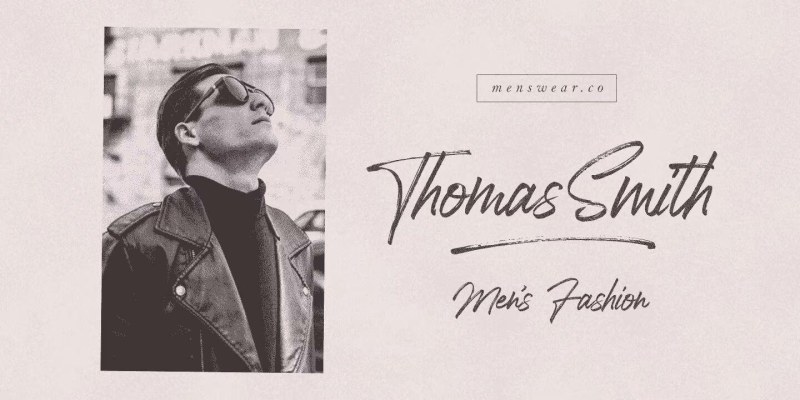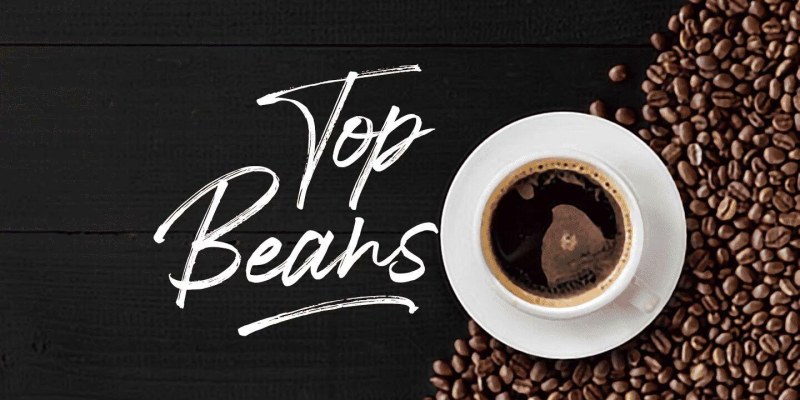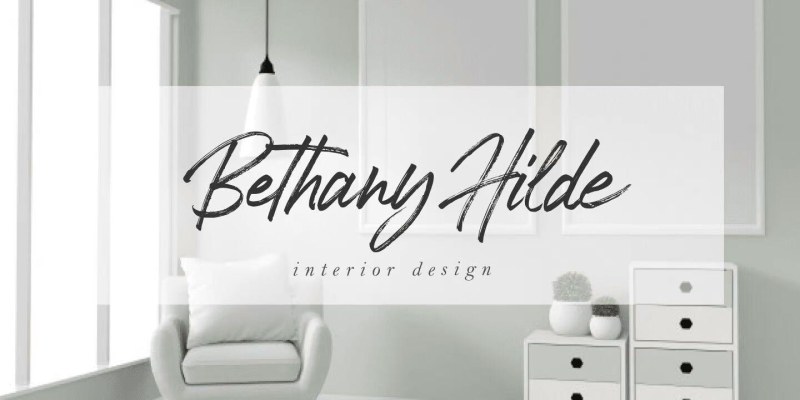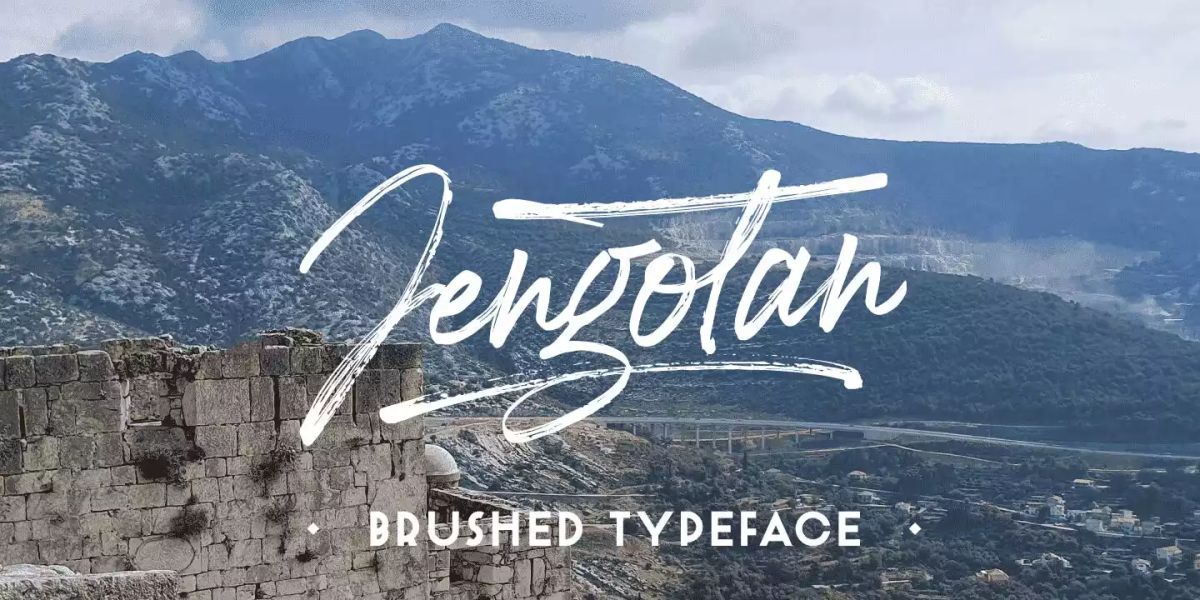
Jengotan Font Family
Jengotan is a rapid script, hand-painted with a brush to contrast thick and thin curves. It is drawn, scanned and vectorized from paper to screen, intending to be an aut…
Jengotan is a rapid script, hand-painted with a brush to contrast thick and thin curves. It is drawn, scanned and vectorized from paper to screen, intending to be an authentic brush typeface, leaving the texture and imperfections the way they are, resulting in a vivid style for projects that require dynamic handwriting. In addition to the Jengotan font, the Upright variation is also included. The lettering is suitable for quotes, logos, watermarks on photography, signatures, branding, advertisements, album covers, business cards, clothing, magazines, posters, and more! It is a font of extensive lingual support, covering all European Latin scripts. The font contains all the characters you need, including all punctuation and numbers.
Where Jengotan Font Family works best
Bold branding
Jengotan Font Family brings energy to sports, fitness, streetwear and surf brands.
Merch & apparel
Brush lettering prints beautifully on T-shirts, tote bags and stickers.
Social media & thumbnails
Punchy brush strokes grab attention in stories, reels covers and thumbnails.
What is Jengotan Font Family good for?